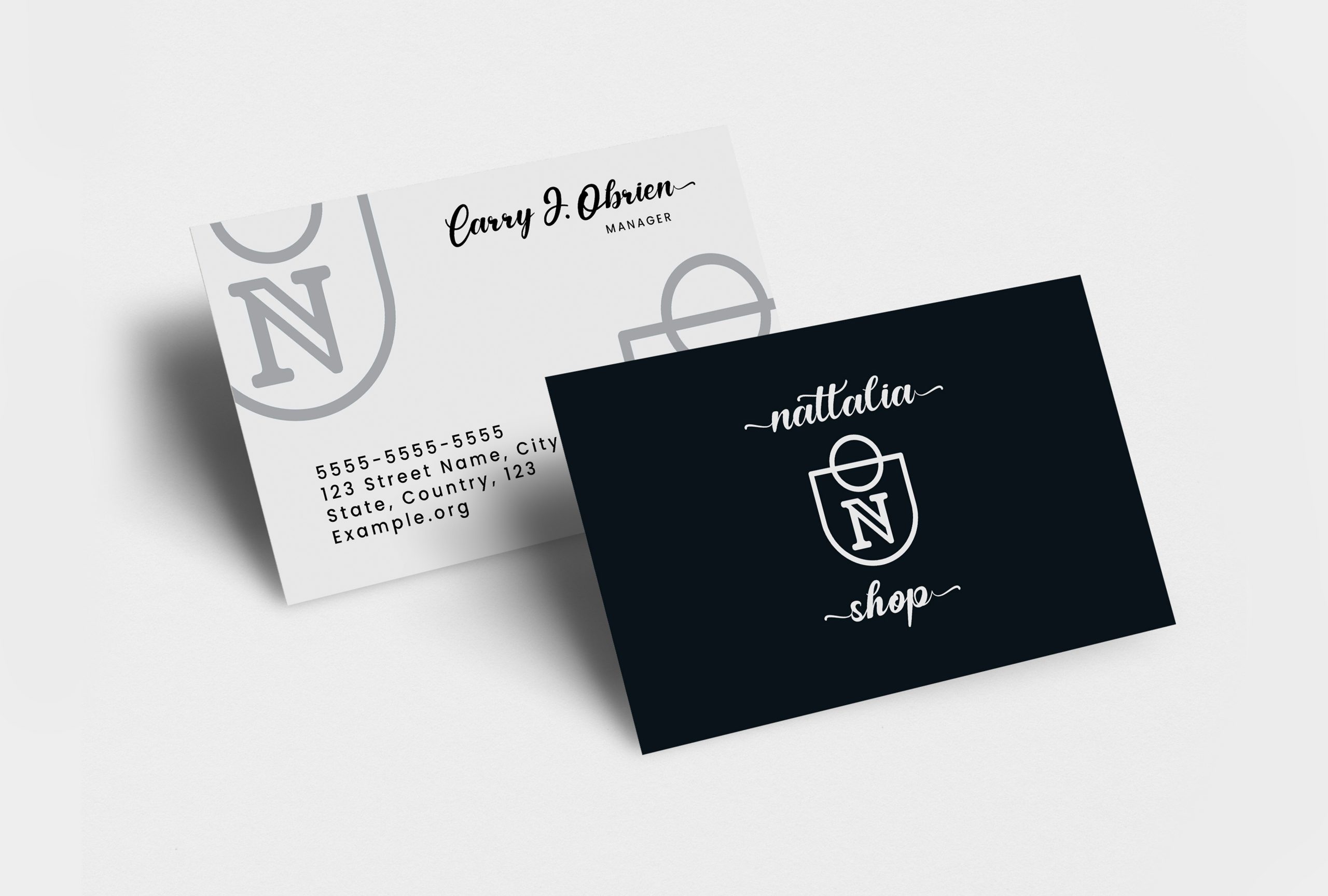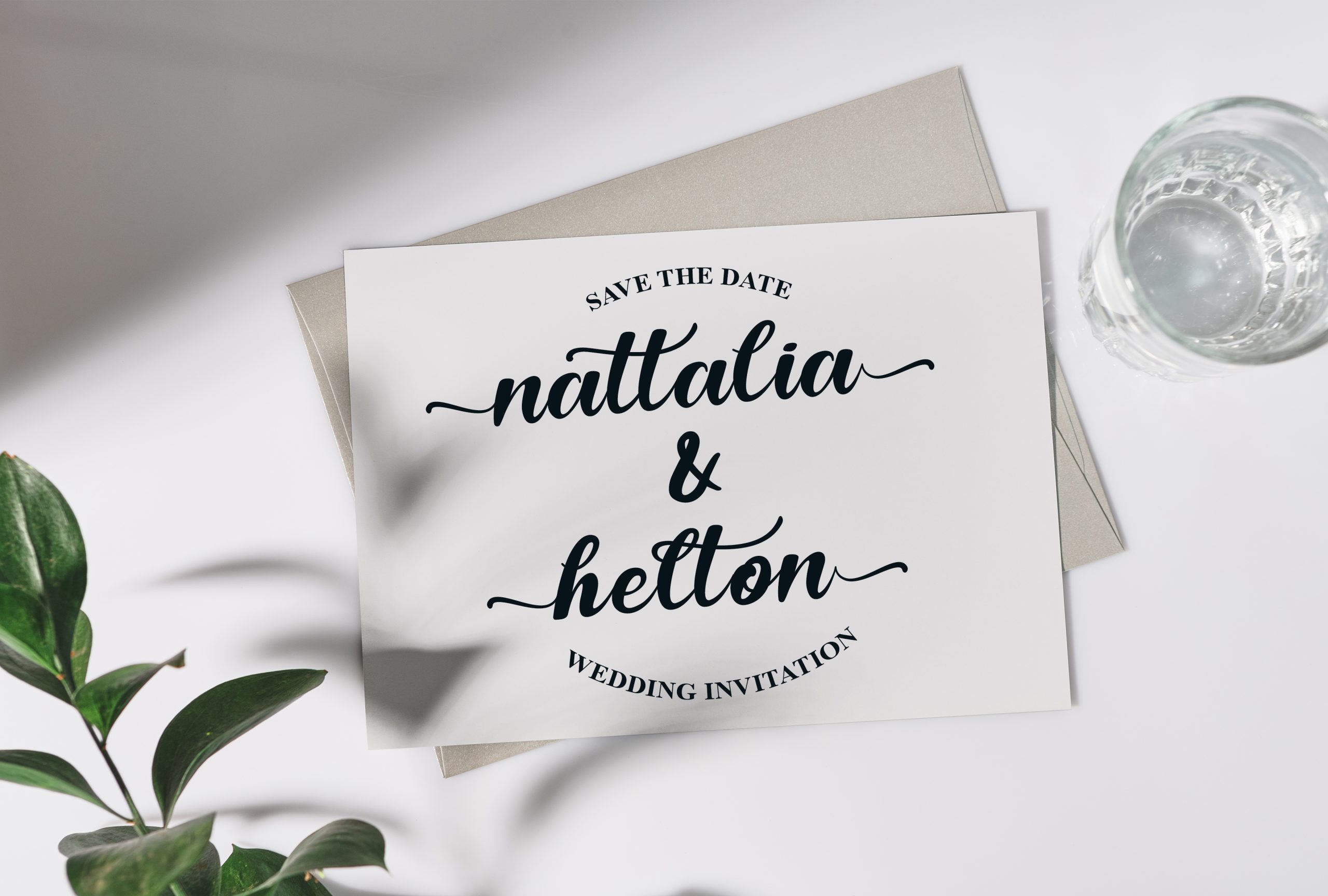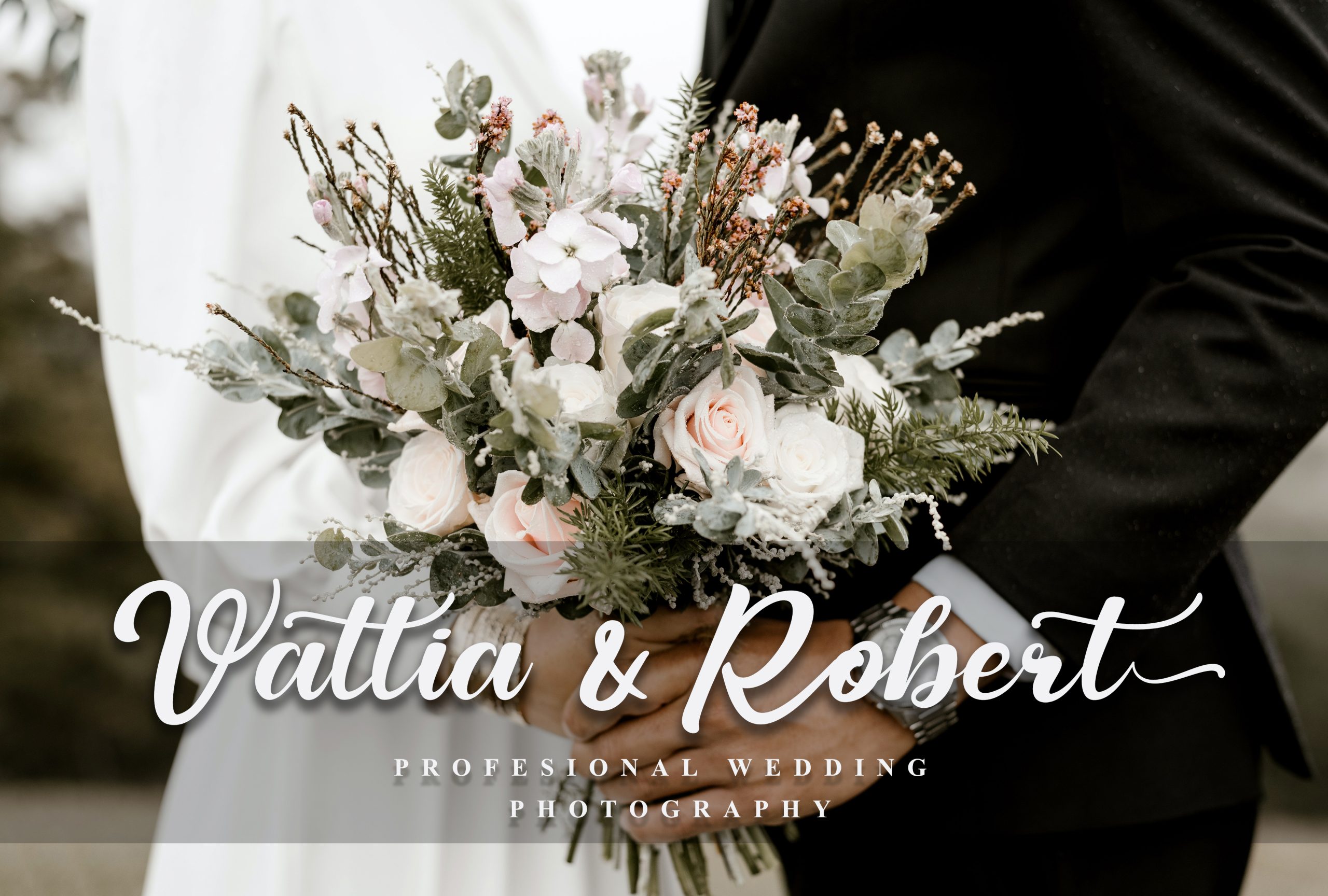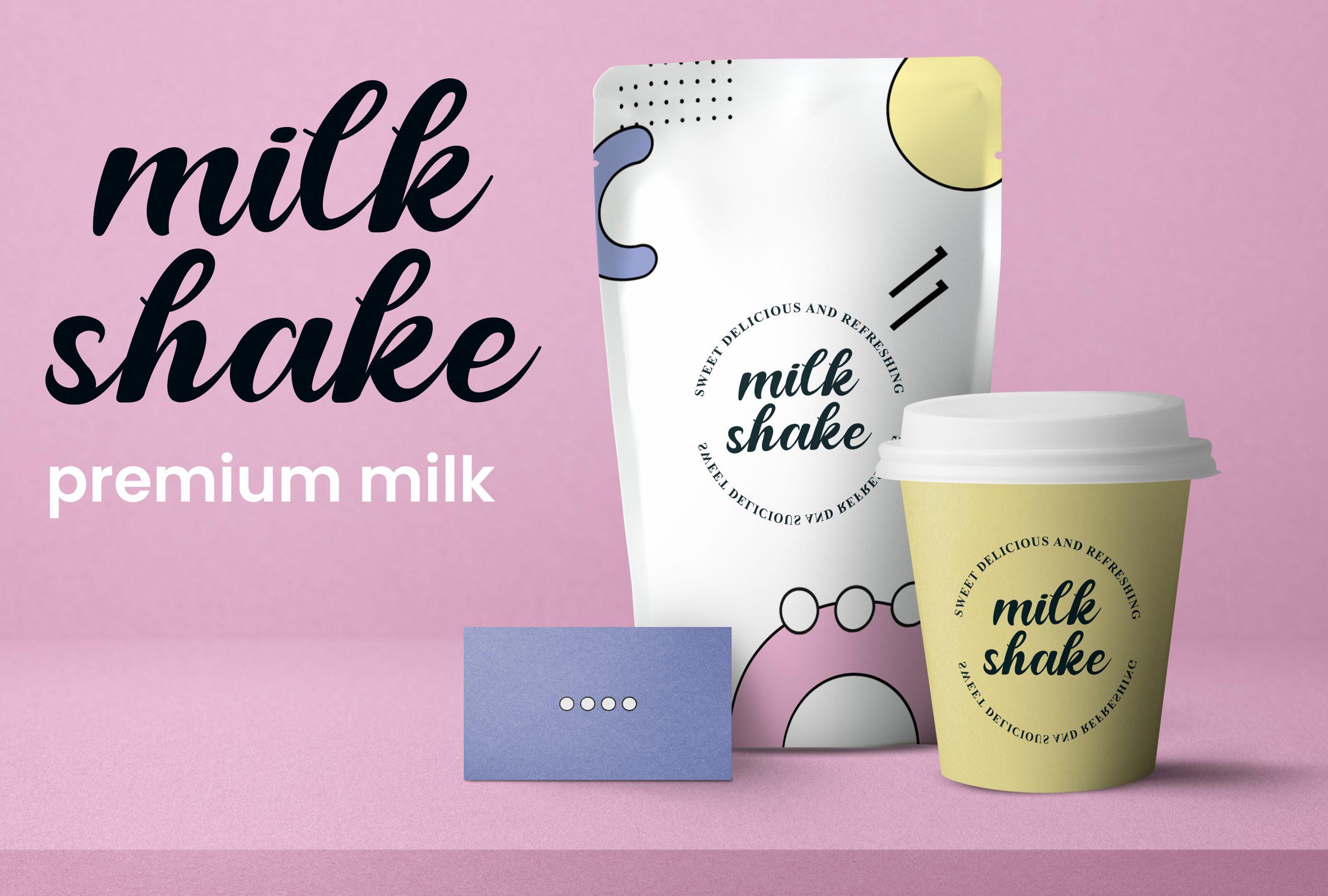
Better Together Script Font
It’s a beautiful handwritten font. Simple and easy to use, this font is perfect for your needs, such as wedding invitations, social media posts, quotes, or fancy business cards. You can also add it to personal branding, shop branding, products, and more creative projects!